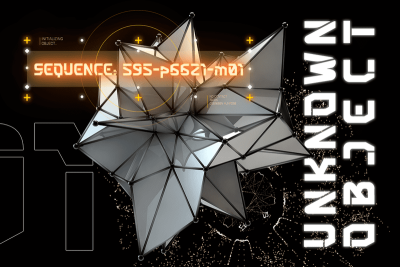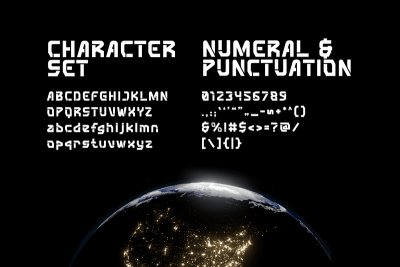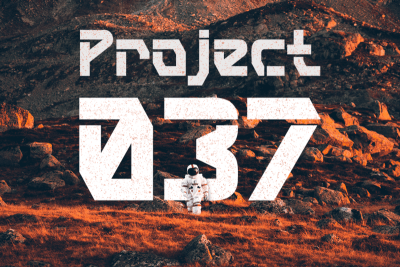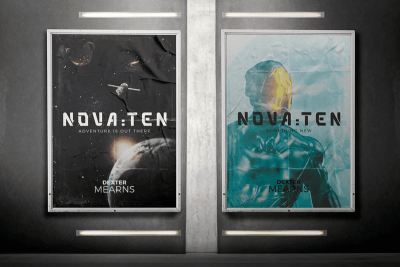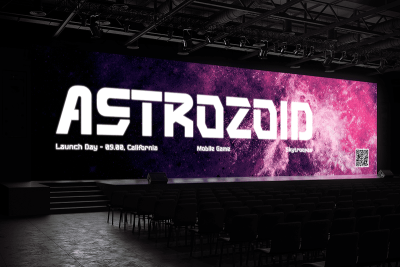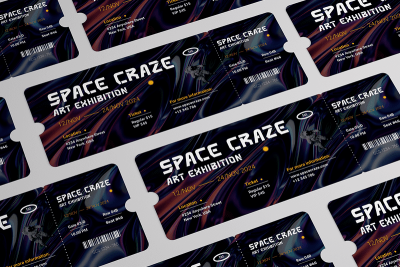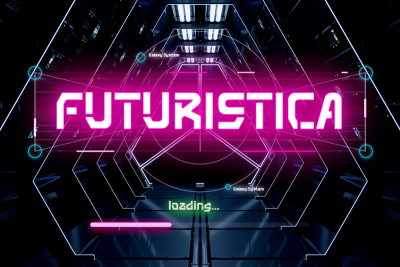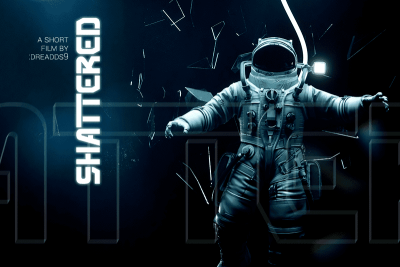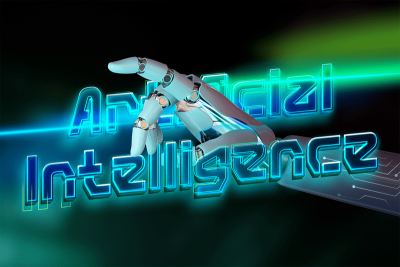
Stencil Font MAX TORQUE
MAX TORQUE
Stencil Font MAX TORQUE is a cutting-edge typeface designed for futuristic, high-tech, and sci-fi-themed projects. Moreover, its bold, angular letters and stencil-like precision create a dynamic and mechanical feel, making it the perfect choice for designs that demand a strong, modern, and digital presence. Inspired by cyberpunk aesthetics, digital circuits, and high-speed technology, MAX TORQUE embodies a sense of motion, power, and innovation.
The font’s sleek yet rugged structure ensures high readability while maintaining an industrial and space-age vibe. Whether used in neon-lit gaming graphics, tech startup branding, or sci-fi movie posters, MAX TORQUE delivers an electrifying impact. Furthermore, the combination of sharp edges, geometric shapes, and futuristic details makes it versatile for various digital and print applications.
Additionally, MAX TORQUE offers a seamless balance between form and function. Not only is it visually compelling, but it is also highly functional across multiple media. From holographic interfaces to esports tournament banners, this font brings a sense of energy and sophistication to any design project. As a result, it enhances any futuristic design with ease.
Stencil Font MAX TORQUE Perfect For
Stencil Font MAX TORQUE is a must-have for designers, game developers, and content creators looking to add a futuristic edge to their work. Moreover, its versatility makes it an excellent fit for various creative fields.
• Game Developers & UI Designers: Ideal for in-game text, futuristic user interfaces, and promotional materials for sci-fi and action-packed games.
• Tech & AI Brands: Perfect for startup logos, cybersecurity firms, AI-driven platforms, and robotics companies seeking a cutting-edge visual identity.
• Movie & Entertainment Industry: Great for sci-fi movie posters, cyberpunk-themed productions, and tech-based branding elements.
• Esports & Streaming Creators: Enhances Twitch overlays, YouTube thumbnails, and digital branding for competitive gaming teams.
• Event & Merchandise Designers: Suitable for technology expos, virtual reality events, and apparel branding that embraces futuristic aesthetics.
With Stencil Font MAX TORQUE, your designs will instantly stand out in a digital landscape. Whether crafting a bold title, designing a tech-infused interface, or creating a high-energy esports brand, this font is the ultimate choice for achieving a futuristic and high-tech appeal. Therefore, push your creativity to the limit and bring the future to life with MAX TORQUE!